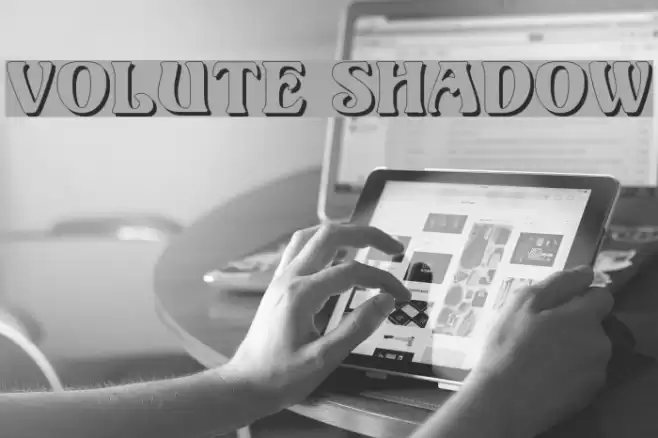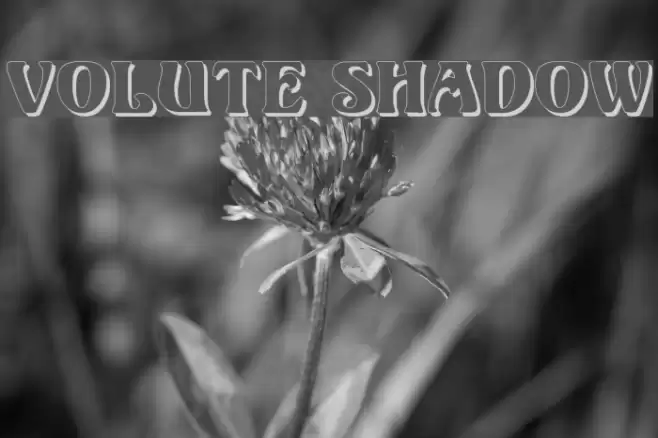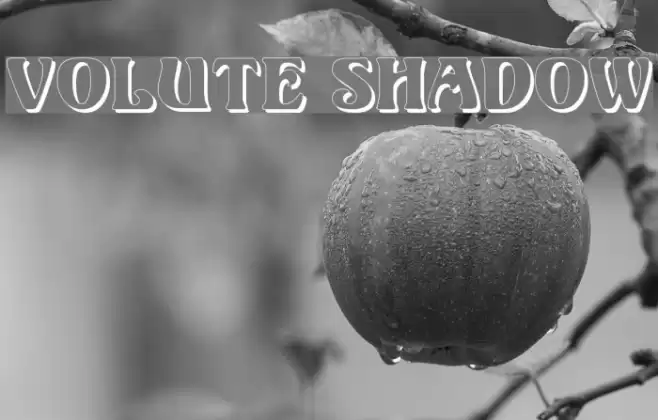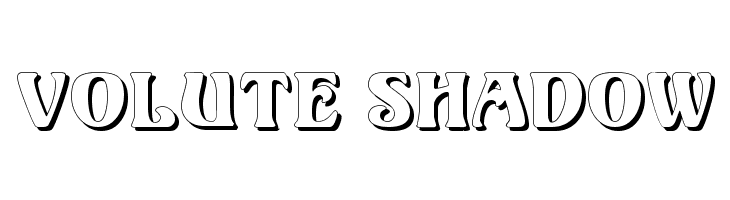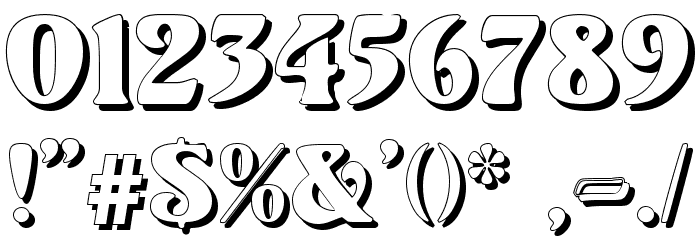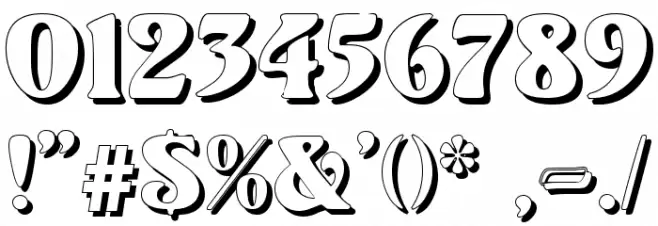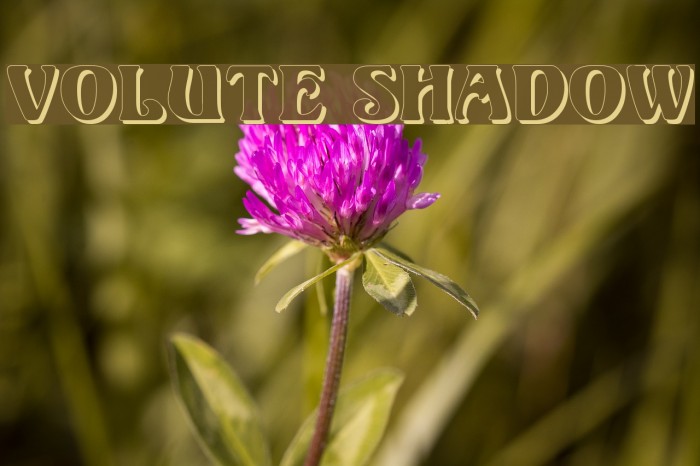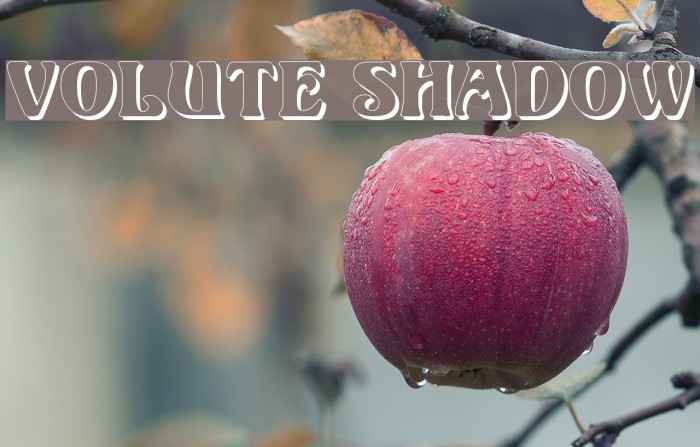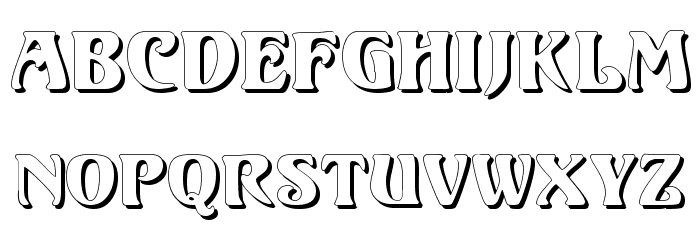
Volute Shadow Font
Volute Shadow Description
This font features a bold and decorative style with a distinct shadow effect that gives it a three-dimensional appearance. The characters are designed with a strong presence, making them ideal for attention-grabbing headlines or titles. Each letter is crafted with a consistent shadow that enhances its depth and visual impact. The font maintains a uniform width across all characters, providing a balanced and cohesive look. The uppercase and lowercase letters are well-defined, with a playful yet structured aesthetic. The numbers and special characters follow the same design principles, ensuring a harmonious overall appearance. This font is perfect for projects that require a bold statement and a touch of creativity.
A bold, decorative font with a three-dimensional shadow effect from Uncategorized fonts.
- Proposed Projects: Ideal for posters, logos, book covers, and any design needing a bold, eye-catching typeface.